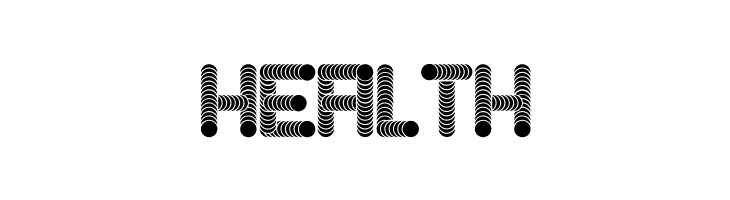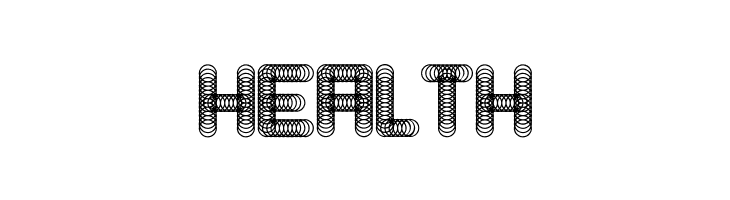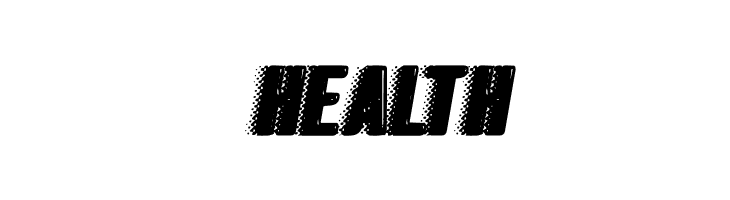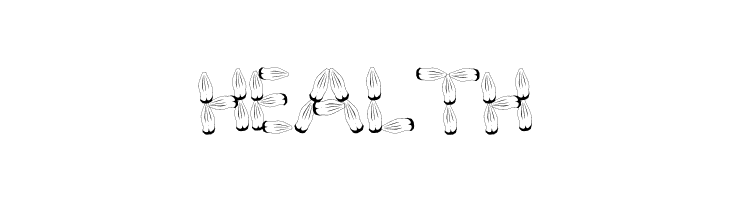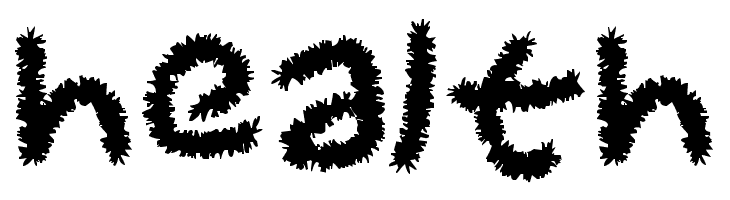
A bold, italic font with a halftone texture and dynamic style.
A bold, geometric font with a three-dimensional, retro-futuristic style.
A bold, modern sans-serif font with tall, narrow characters and uniform stroke width.
A playful, textured font with a fuzzy, pipe cleaner-like appearance.
An industrial, pipe-inspired decorative font with intricate details.
A decorative font with an intricate, pipe-like design and bold geometric structure.
A bold, geometric font with overlapping circular patterns creating a modern and dynamic look.